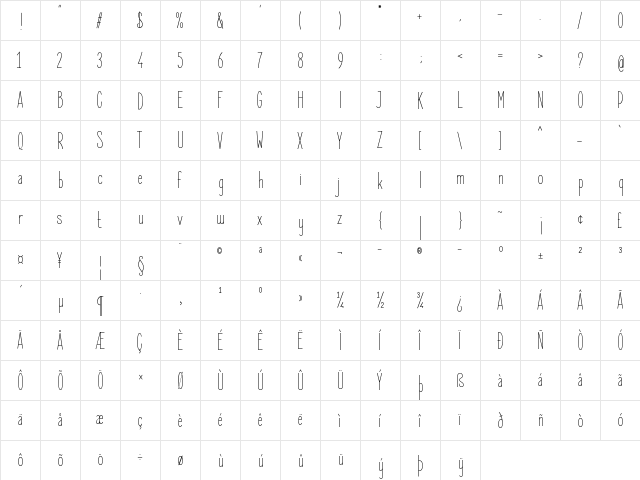
Elegant Sans Light
| Foundry | Darwinoo |
| Designer | Darwinoo |
Design Context for Elegant Sans Typeface
Elegant Sans takes a measured approach to typography — its balanced proportions and neutral character make it a reliable workhorse for both digital and print work. Its slender proportions lend an understated elegance to any composition.